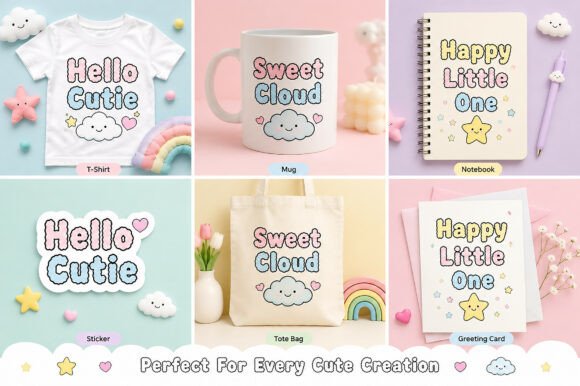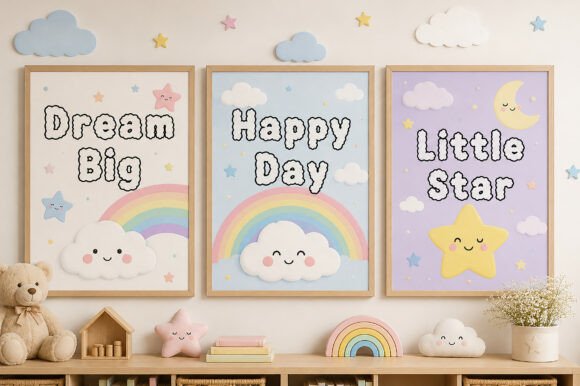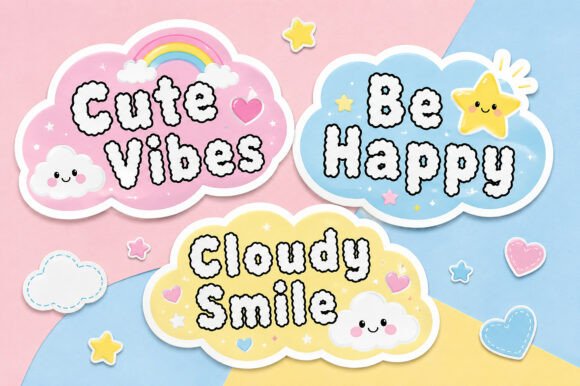
Introduction to Kawaii Cloud Font
Kawaii Cloud is an adorable and playful display font inspired by fluffy clouds, dreamy skies, and kawaii aesthetics.
Featuring soft, puffy letterforms with a charming hand-drawn feel, this font is perfect for creating cute and cheerful designs that instantly stand out Whether you’re designing for kids, nursery decor, stickers, Cricut projects, sublimation products, greeting cards, party invitations, social media graphics, or playful branding, Kawaii Cloud adds a sweet and whimsical touch to every project.
Kawaii Cloud Font offers exceptional quality and versatility, making it a valuable addition to your design toolkit. Whether you’re creating for personal projects or commercial use, Kawaii Cloud Font delivers professional results.